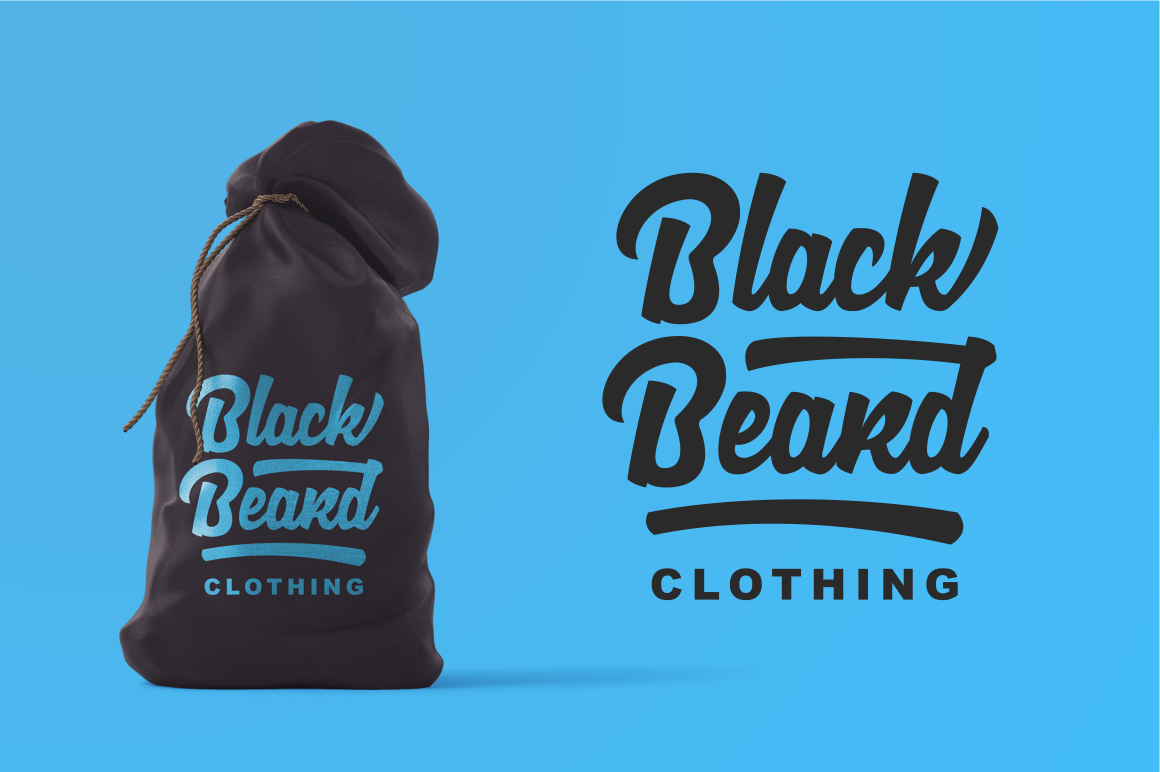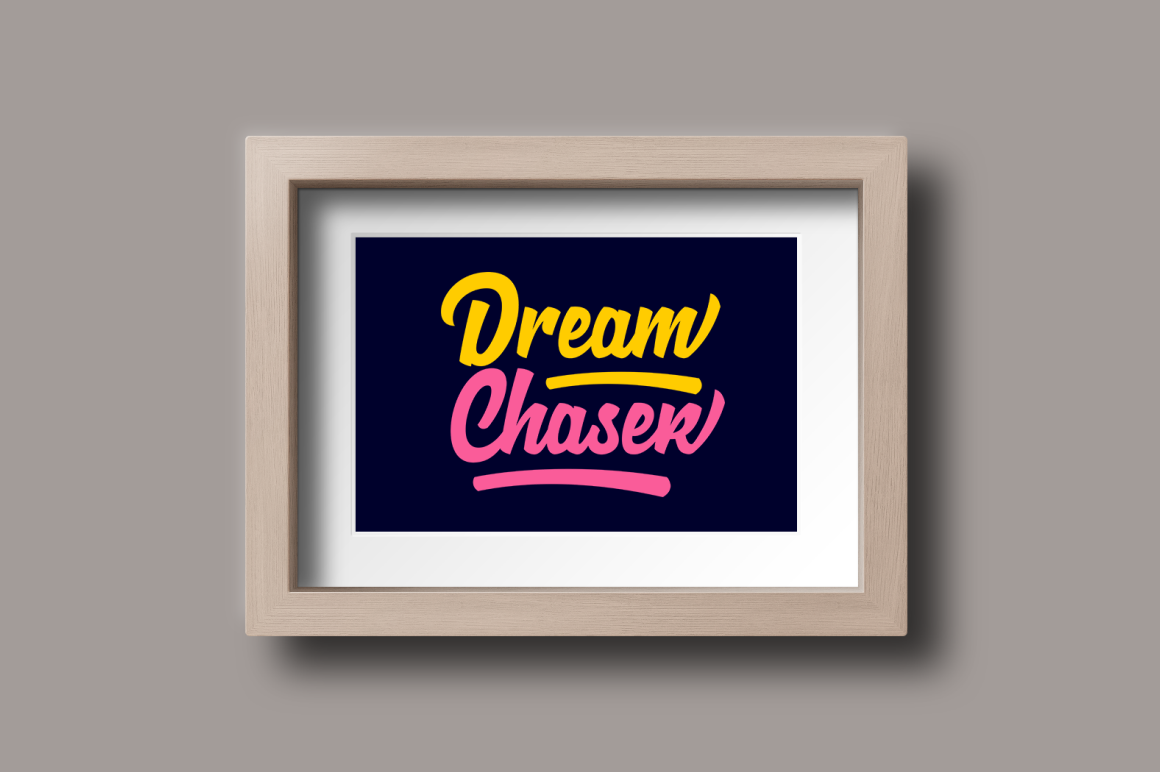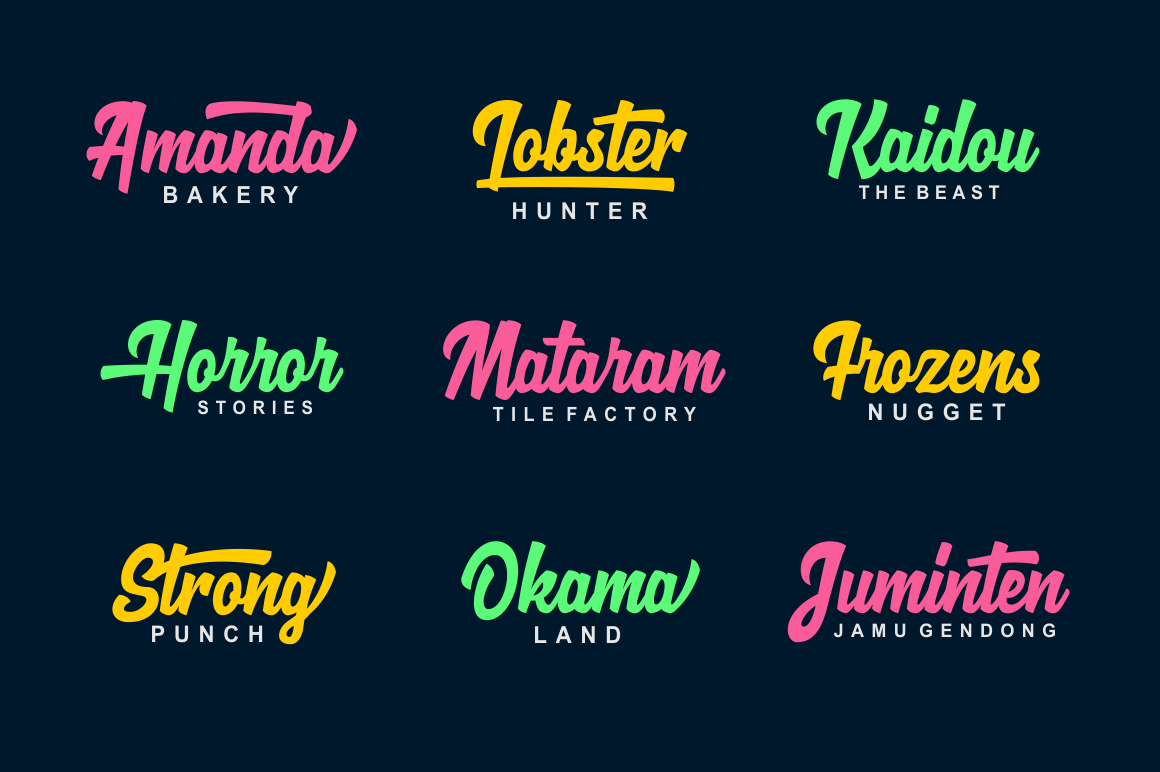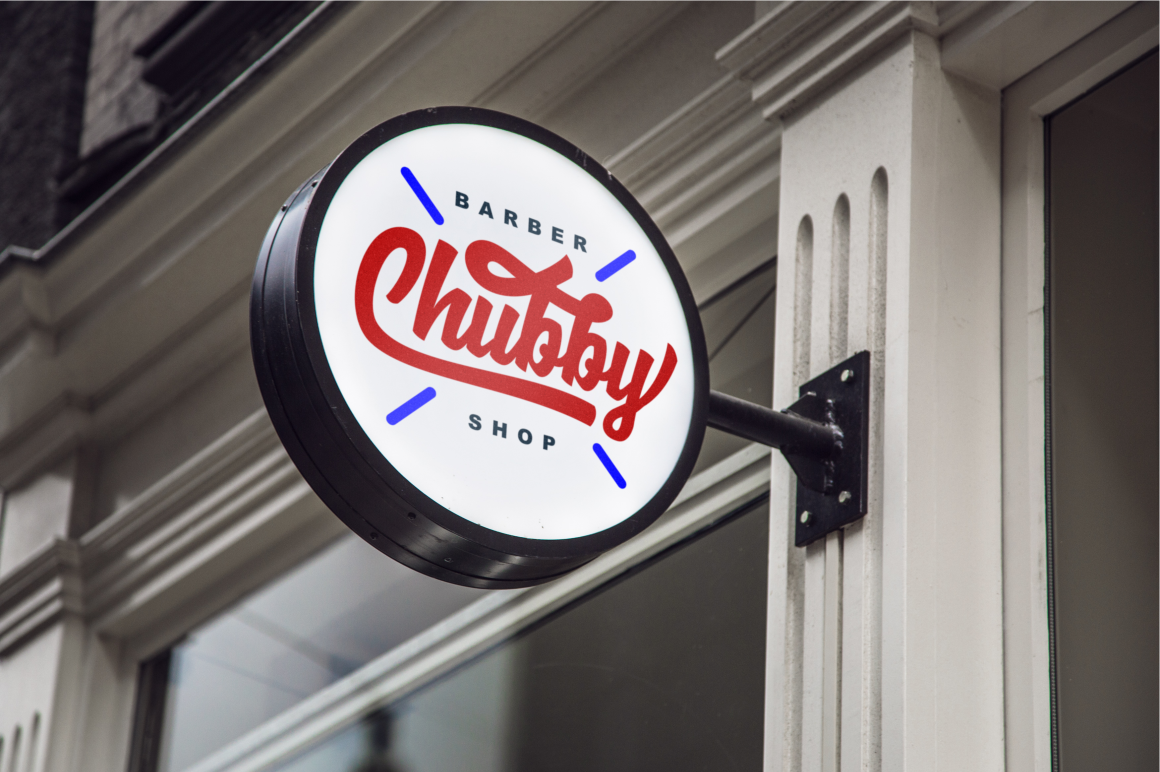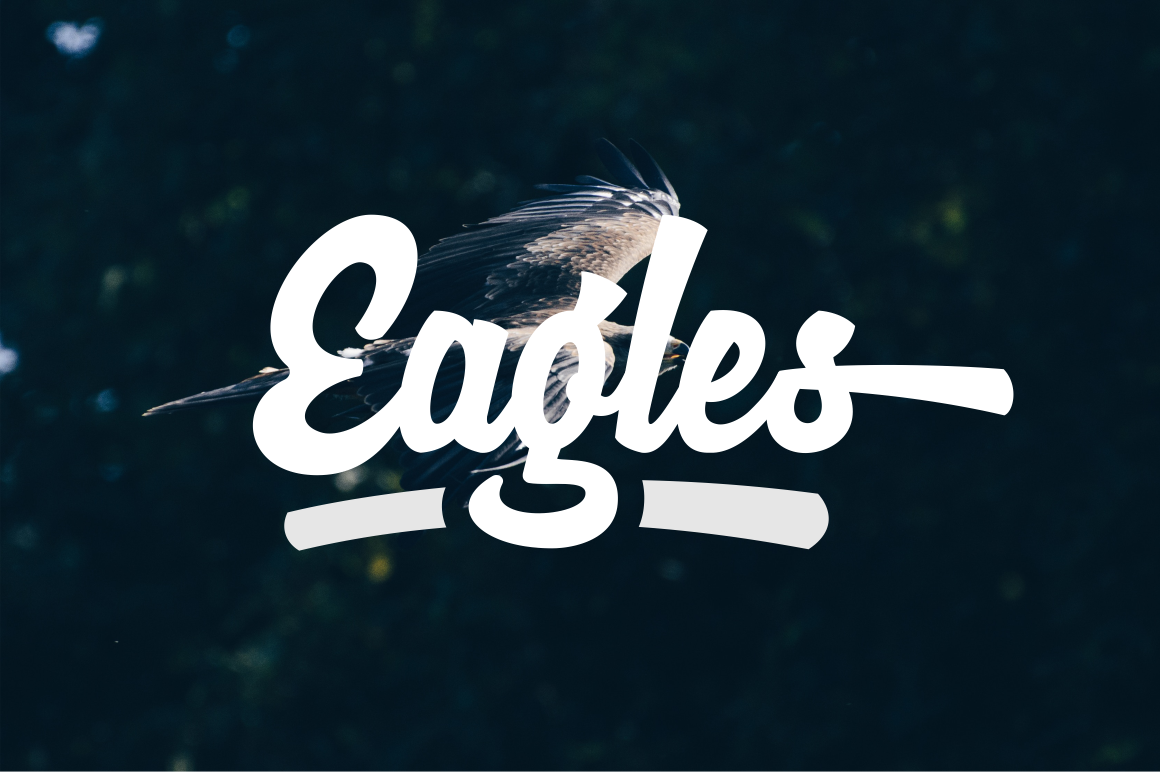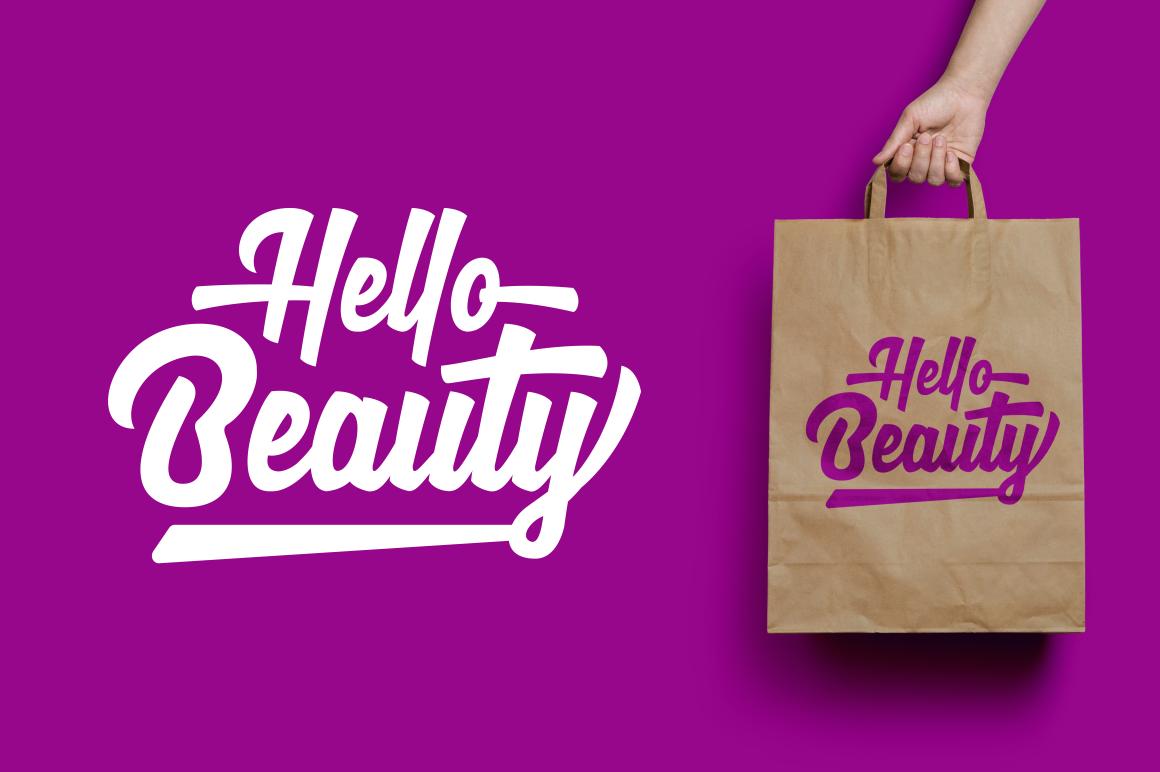
Introduction to Loguetown Font Font
Fonts play a crucial role in design, and the Loguetown Font font is a typeface that brings both character and versatility to any project. Whether you’re working on a branding project, a website, or a print design, the Loguetown Font font offers a unique style that can elevate your work.
Loguetown is a bold script, inspired by brush lettering.
Itβs the perfect typeface for creating strong communicative designs that are guaranteed to leave an impression .
The Loguetown Font font is more than just a typeface β it’s a design tool that helps you communicate your message with style and clarity. Its unique character set and versatile design make it suitable for a wide range of applications, from elegant invitations to bold headlines.
With its carefully crafted letterforms and balanced proportions, the Loguetown Font font ensures readability and visual appeal across all mediums.
The Loguetown Font font stands out with its unique design, exceptional readability, and versatility across various design applications.